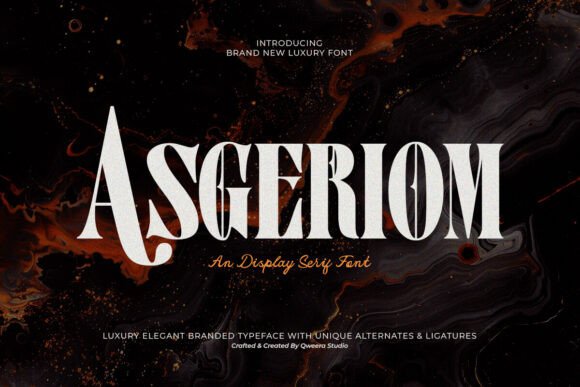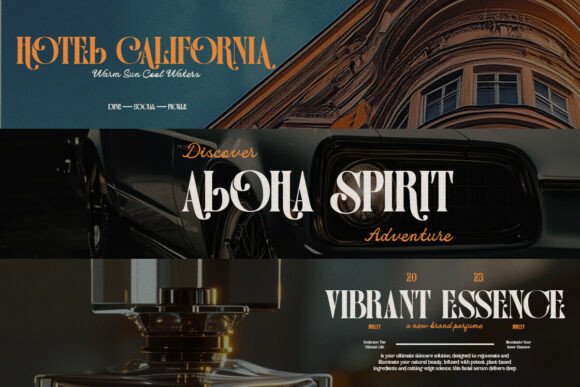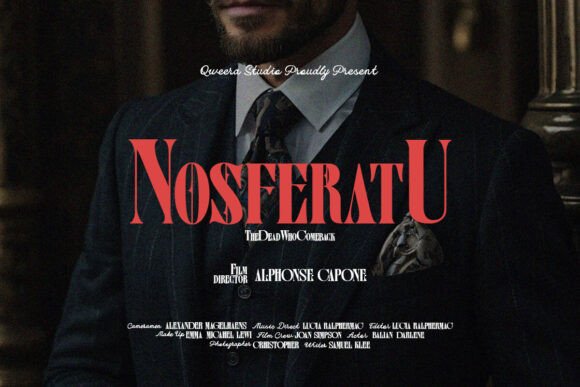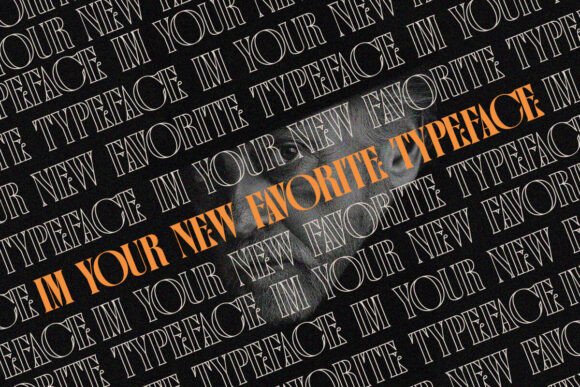
Asgeriom Font: Elegant Serif for Sophisticated Logo Design
About the Asgeriom Font
Welcome to the world of Asgeriom Font, a typeface that will inspire your next great project. Asgeriom – Stylish Display Serif Font for Sophisticated Designs
Asgeriom is more than just a font—it’s a stylish display serif typeface crafted with precision and elegance. Featuring unique alternates and ligatures, this font offers flexibility for designers to create eye-catching and customizable layouts effortlessly. Whether you’re working on branding, posters, magazines, or print designs, Asgeriom delivers a sophisticated touch to any project, making it ideal for both professional and creative use.
Where Style Meets Versatility
Asgeriom stands out with its modern serif design and stylish features, offering endless creative possibilities. Its versatility makes it ideal for projects that demand a bold and elegant aesthetic, from editorial layouts to creative branding. This font isn’t just a tool—it’s a statement of creativity and sophistication.
Key Features
✔ Stylish Display Serif Design – Perfect for branding, posters, magazines, and print designs.
✔ Unique Alternates & Ligatures – Add a unique and creative touch to your designs.
✔ Sophisticated Touch – Ensures your projects stand out with elegance and style.
Elevate Your Designs with Asgeriom
Asgeriom isn’t just a font—it’s a tool to transform your creative projects into bold, sophisticated masterpieces. Whether you’re designing for print, digital, or branding, this font ensures your work stands out with confidence and style.
Asgeriom Font Usage Examples
Asgeriom Font Example